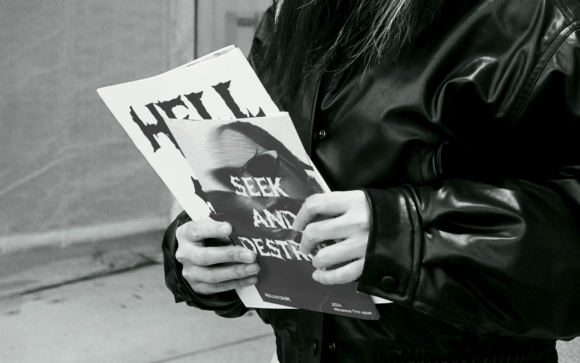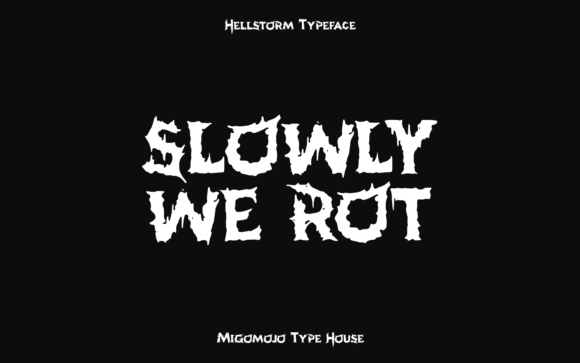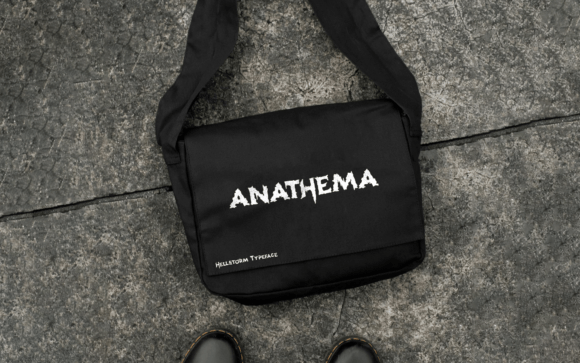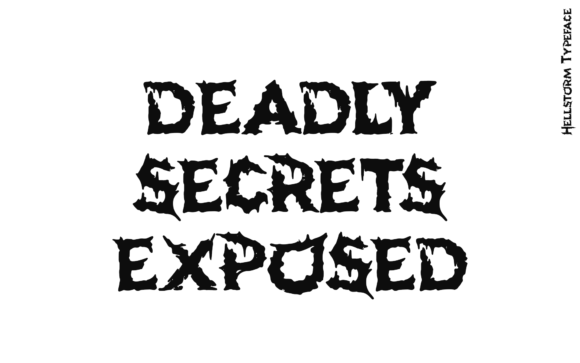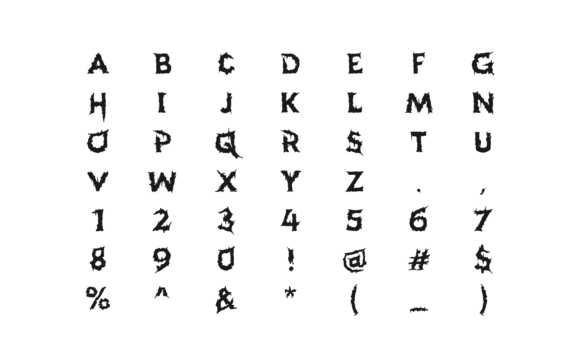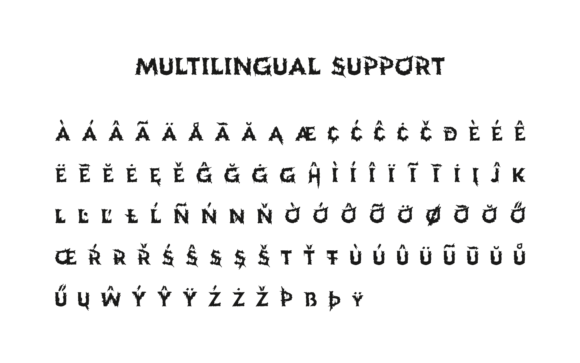
Unleashing the Fury of the Underground: Introducing Hellstorm Font
You’re probably no stranger to those late-night creative sessions, where the only sound is the hum of your computer and the rush of adrenaline as your imagination runs wild. It’s in these moments that you stumble upon a font that speaks to you – one that embodies the raw energy of your creative vision. For designers seeking to unleash their inner ferocity, Hellstorm Font is the perfect catalyst. Forged from the depths of the underground metal scene, this typeface embodies the anti-design rebellion and brutalism that will leave a lasting impact on your projects.
What makes Hellstorm Font so valuable to designers is its unique ability to capture the essence of chaotic intensity, horror, and spookiness. Whether you’re working on a horror movie poster or a heavy metal album cover, Hellstorm Font is the perfect choice for projects that demand a fierce and untamed aesthetic.
Hellstorm Font Key Features
- Font Family: Hellstorm Font comes in a single font family with multiple weights and styles.
- Unique Characteristics: The Hellstorm Font features a distressed, grunge aesthetic with bold lines and textures, adding a rugged touch to designs.
- Language Support: Supports multiple languages, including Latin, Cyrillic, and Greek alphabets, making it a versatile font for global designs.
Review: Hellstorm Font
Overall, I have mixed feelings about the Hellstorm Font. On one hand, it’s a unique and attention-grabbing font that can add a bold touch to any design. ✨
The font’s bold and distressed texture gives it a post-apocalyptic feel, making it perfect for designs related to sci-fi, horror, or action-packed themes. The high contrast between the bold and thin lines creates a striking visual effect, making it suitable for headlines, titles, or even social media graphics.
- Unique and bold texture that grabs attention ✨
- Perfect for sci-fi, horror, or action-packed themes
- High contrast between bold and thin lines creates a striking visual effect
However, there are some limitations to consider. ⚠️
- The font can be overwhelming if used extensively throughout the design
- May not be suitable for designs that require a more subtle or elegant look
- Can be difficult to read in smaller font sizes
Overall, I think the Hellstorm Font is a great addition to any designer’s toolkit, but it should be used judiciously to avoid overwhelming the viewer. With careful use, it can add a bold and attention-grabbing touch to any design.
Tips for Getting the Most Out of Hellstorm Font
Use the Hellstorm font for bold, dramatic headlines and titles.
Combine the Hellstorm font with other bold fonts for a striking visual effect.
Use the Hellstorm font in conjunction with dark or bold backgrounds to create a striking contrast.
Use the Hellstorm font for:
Movie and TV title sequences
Video game titles and menus
Graphic novels and comic books
Rock and metal band logos and merchandise
Alternatives to Hellstorm Font
1. Roboto
Roboto is a popular sans-serif font designed by Google. It’s clean, modern, and highly legible. Use it for digital products, websites, and apps where you need a clear and readable font.
Comparison to Hellstorm Font: Roboto has a more geometric and minimalist design compared to Hellstorm Font’s bold and distressed look.
2. Arial Black
Arial Black is a sans-serif font known for its bold and dramatic look. It’s often used for titles, headings, and other display text where you need to make a statement.
Comparison to Hellstorm Font: Arial Black has a more classic and elegant design compared to Hellstorm Font’s edgy and industrial look.
Montserrat is a sans-serif font designed for urban environments. It’s highly legible and features a geometric design with a strong, industrial feel.
Comparison to Hellstorm Font: Montserrat has a more modern and sleek design compared to Hellstorm Font’s distressed and weathered look.
Q: What is the character set and language support for the Hellstorm Font?
The Hellstorm Font includes a comprehensive character set that supports Latin, Cyrillic, and Greek alphabets, as well as a range of punctuation and symbol characters. It also includes support for over 100 languages, including English, Spanish, French, German, Chinese, and many others.